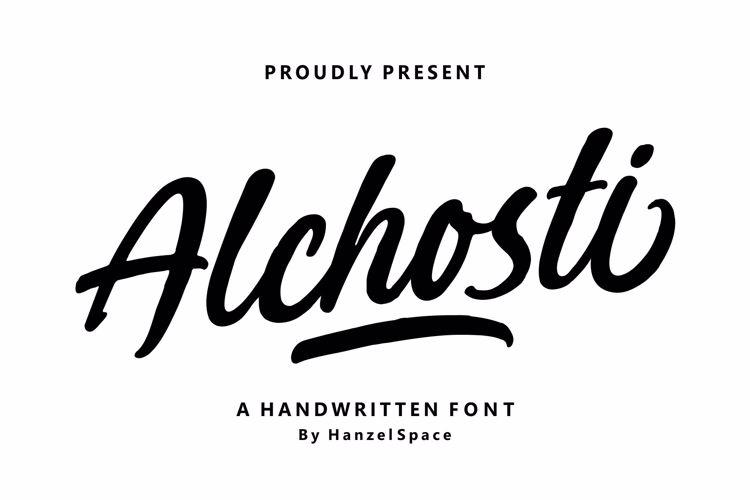
Alchosti – A Handwritten Font
Alchosti Made with original handwriting, it has a slight texture so it looks natural a clear style and dramatic movement this font is great for your next creative project such as logos, editorial design, simple branding, instagram quotes, wedding stationery, packaging, websites, and more!
– Full Set of standard alphabet and punctuation
– Multilingual Characters (ÁÂÄÀÅÃÆÇÐÉÊËÈÍÎÏÌÑÓÔÖÒØÕÚÛÜÙẂŴẄẀÝŶŸỲ áâäàåãæçðéêëèíîïìñóôöòøõœúûüùẃŵẅẁýŷÿỳ€£¥)